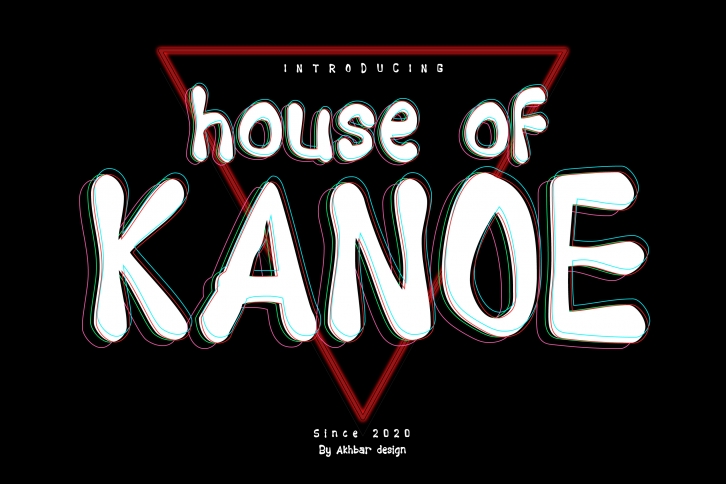
House of Kanoe is a great font that was designed by Akhbar Design. Imagine the amount of combinations you can create using this font! The archive is 3.16 MB and it was released on January 31, 2020. House of Kanoe looks beautiful on wedding invitations, greeting cards, logos, posters, labels, t-shirt designs, logos, business cards and is perfect for use in ink or watercolor works, fashion, magazines, packaging and food menus, children's books and more!